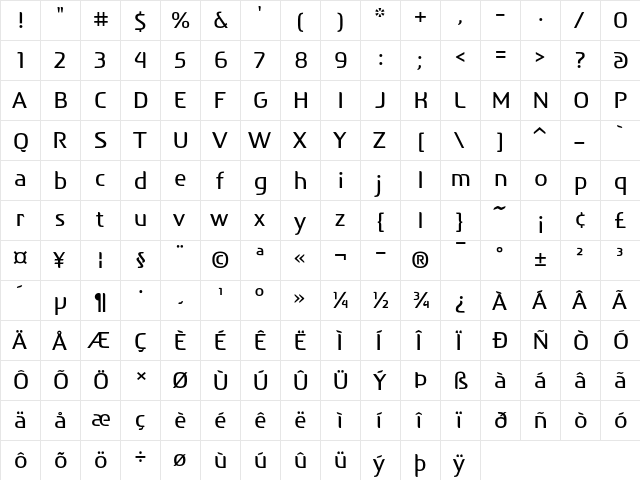
After Text Light Regular
| Designer | Fabio Luiz Haag |
Design Context for After Text Light Typeface
After Text Light is a composed and adaptable typeface that performs quietly and consistently across a wide range of design contexts. Its slender proportions lend an understated elegance to any composition.